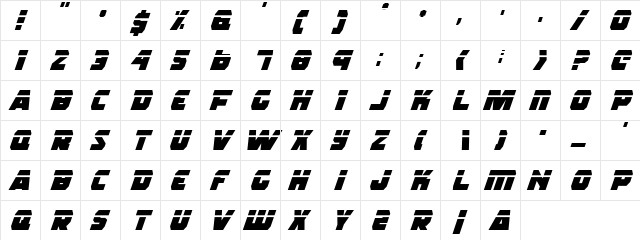
Rogue Hero Laser Italic Laser Italic
Design Context for Rogue Hero Laser Italic Typeface
Rogue Hero Laser Italic is a composed and adaptable typeface that performs quietly and consistently across a wide range of design contexts. The dynamic lean of this cut emphasises speed and emphasis in any layout.
Pro Tip: Use Rogue Hero Laser Italic for emphasis, pull quotes, and subheadings where its slanted energy can add rhythm to the layout.